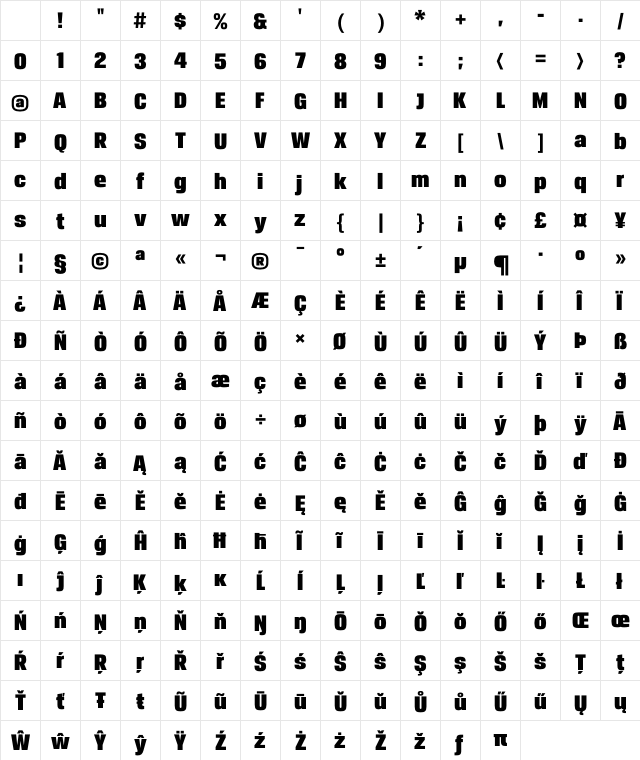
Complete BreuerHeadline Regular glyph index. Displaying only characters natively supported by BreuerHeadline Regular font.
BreuerHeadline is a composed and adaptable typeface that performs quietly and consistently across a wide range of design contexts.